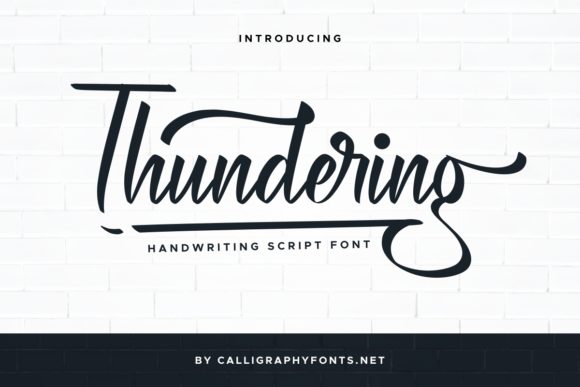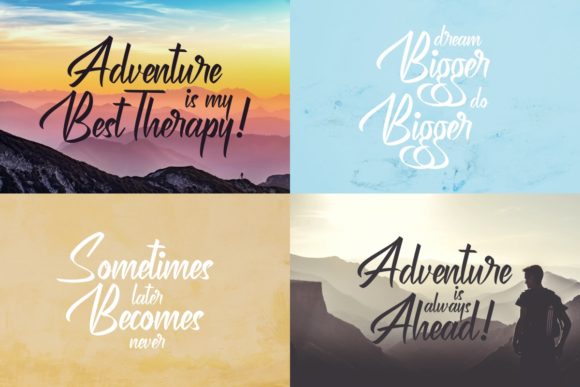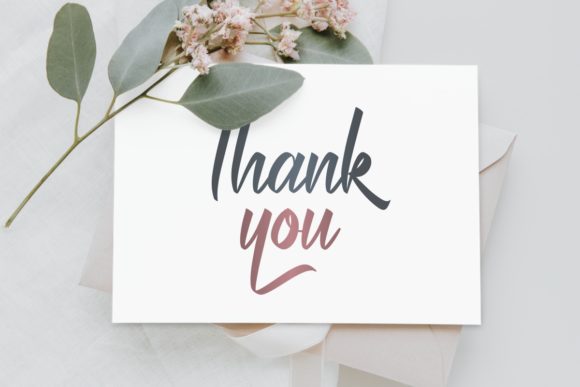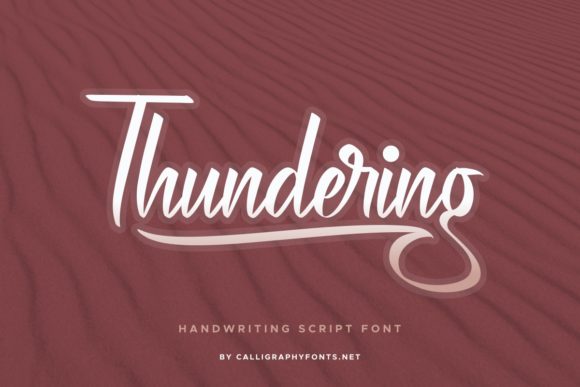
About Thundering Font
Thundering is a sweet and friendly handwritten font. Its natural and unique style makes it incredibly fitting to a large pool of designs. The only limit is your imagination!